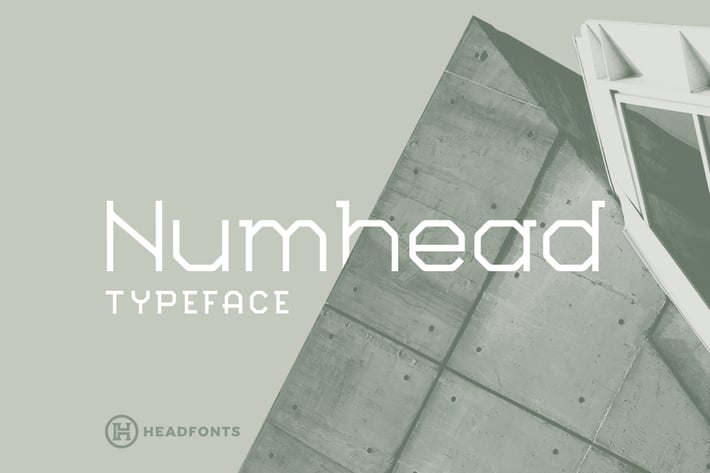
Numhead Typeface
NUMHEAD is a slab serif three font family with geometric, fragmented characters. Numhead has three weights, Light, Regular and Bold with slab serif extended ascenders and thick crossbars. This typeface has a geeky, rugged touch and it is inspired by industrial style. Numhead has 252 glyphs per each weight, uppercase and lowercase and extensive Latin script support. If you are looking for a industrial font but still preserve a contemporary appearance this family suits you. Numhead is best used for industrial or modern-themed designs and can also be used for small articles and occasional texts.
- Numhead Light
- Numhead Bold